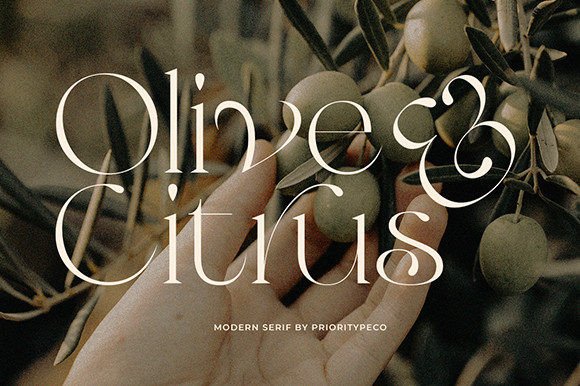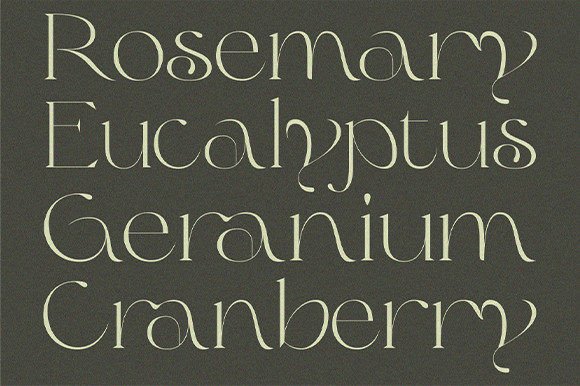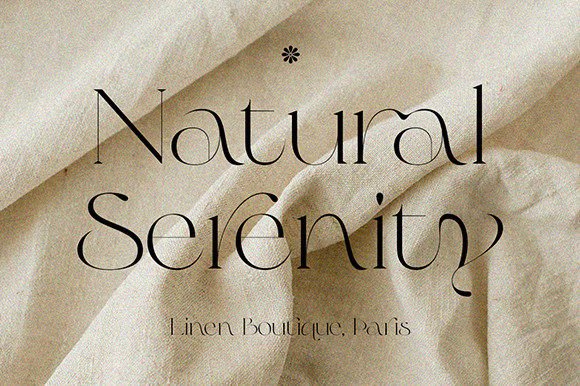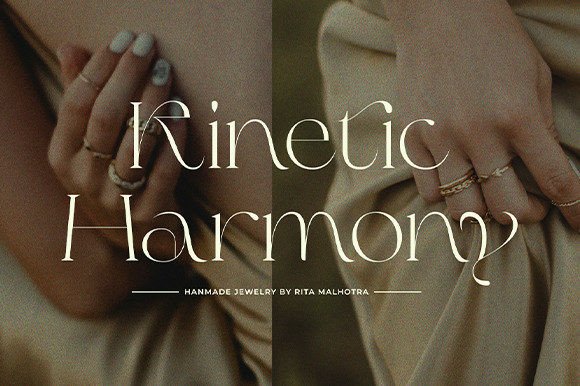
Olive & Citrus Font
About the Olive & Citrus Font
Experience the unique personality of Olive & Citrus Font, a font designed for impact. Olive & Citrus is a modern, classic, and elegant serif typeface. It is suitable for branding designs, logos, magazines, and social media posts.
Olive & Citrus excels in headline treatments, short-form text, and branding applications where a touch of classic elegance is desired. It’s particularly effective for logos, short marketing materials, and packaging designs for high-end products. However, its refined serifs make it less suitable for body copy or extended text blocks; readability suffers at smaller sizes. Avoid using it in user interfaces or situations requiring extensive amounts of text.
To complement its sophisticated air, pair Olive & Citrus with a clean sans-serif like Montserrat for body text or a geometric sans-serif such as Futura for a more modern contrast. A playful script font, used sparingly, could add a touch of personality for invitations or branding where a slightly more informal tone is appropriate.
The overall personality of Olive & Citrus is sophisticated and refined, conveying a sense of timeless quality and understated elegance. Its classic forms lend themselves well to brands that prioritize heritage, craftsmanship, or luxury.